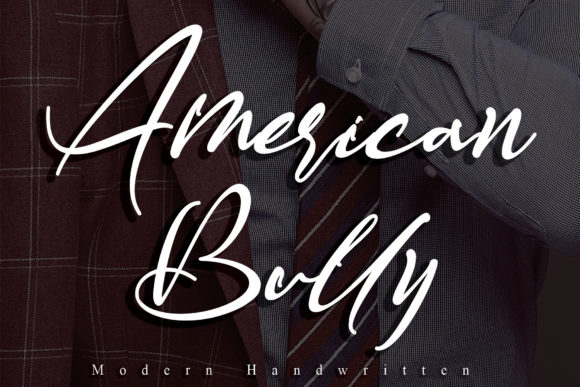
The Magic of American Bully Font: A Designer’s Delight
I’ll never forget the time I was working on a project for a client who wanted a custom logo that exuded elegance and sophistication. I had been searching for the perfect font for hours, but nothing seemed quite right. That’s when I stumbled upon the American Bully font, and it was love at first sight! ✨ This magical handwritten font has a touch of elegance that can turn any creative idea into a true standout.
As a designer, I’m always on the lookout for fonts that can help me create unique and eye-catching projects. Here’s what I love about American Bully:
- ✨ Elegant and sophisticated feel
- ✅ Highly versatile and adaptable
- 💫 Unique and eye-catching letterforms
- 🎨 Perfect for a wide range of creative projects, from logos to invitations
Of course, no font is perfect, and American Bully has a few quirks:
- 🤔 Some letters may not work well in all combinations (e.g., “j” and “p” can be a bit tricky)
- ⚠️ Not ideal for body text or long paragraphs (it’s best used for headlines or short phrases)
One of the best things about American Bully is its OpenType features and glyphs. These allow you to customize your text and add more personality to your designs. Some of the features you can explore include:
- Stylistic alternates: swap out letters for alternative forms
- Glyphs: add special characters and ornaments to your text
- Ligatures: combine letters for a more elegant look
The Story Behind American Bully
American Bully was designed by a team of typographers who wanted to create a font that exuded elegance and sophistication. Inspired by classic calligraphy and handwriting, they carefully crafted each letterform to be both beautiful and functional. The result is a font that’s perfect for creative projects that need a touch of class.
| Q: What type of projects is American Bully best suited for? | A: American Bully is perfect for creative projects like logos, invitations, and social media graphics. |
Overall, American Bully is a magical font that’s sure to delight designers, crafters, and creative hobbyists alike. With its elegant feel, versatility, and ease of use, it’s the perfect addition to any creative project.